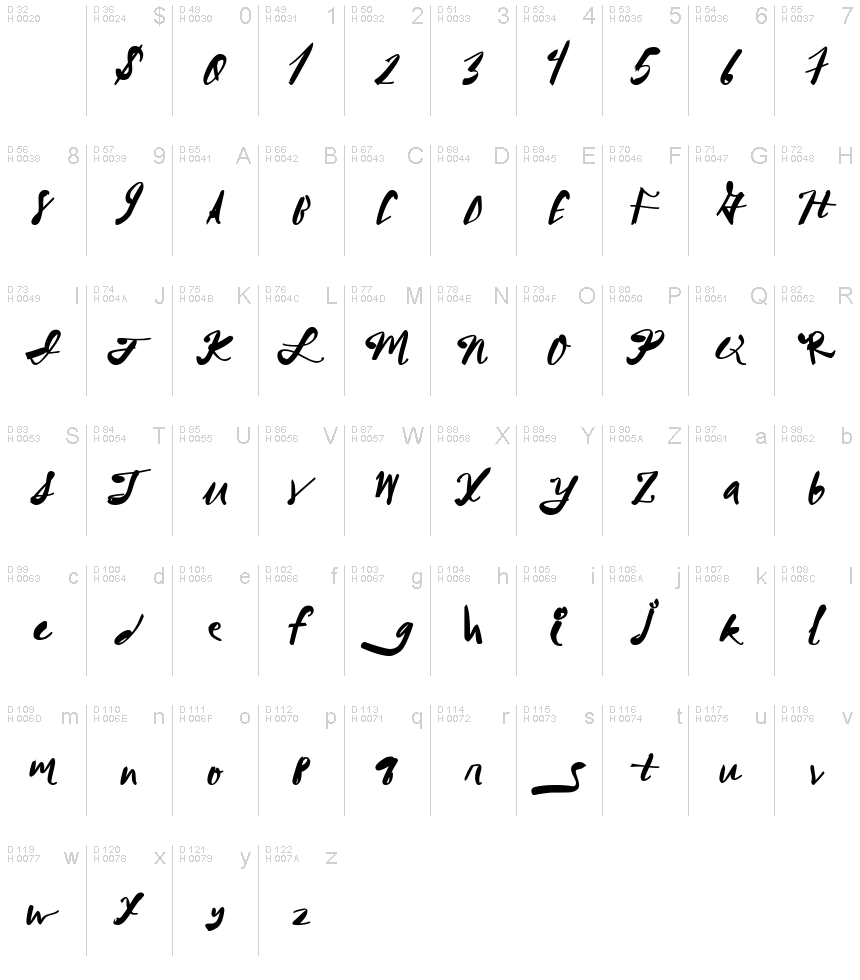
MegaRiches
Mega Riches is a captivating brush font designed by Xerographer Fonts' Max Infeld. Its bold, stylized strokes exude a sense of affluence and luxury, making it an ideal choice for high-end branding, fashion editorials, and eye-catching headlines. The fluid, almost calligraphic nature of the letterforms lends an air of elegance and sophistication, while the dramatic flourishes and varied character widths add a touch of dynamic flair. This font's versatility shines in its ability to convey a range of moods, from sophisticated glamour to edgy, modern appeal.
Mega Riches would excel in a variety of design applications, from luxury product packaging and event invitations to impactful social media graphics and attention-grabbing advertising campaigns. Its distinctive style and versatility make it a compelling option for designers seeking to elevate their projects with a premium, visually striking typographic element.